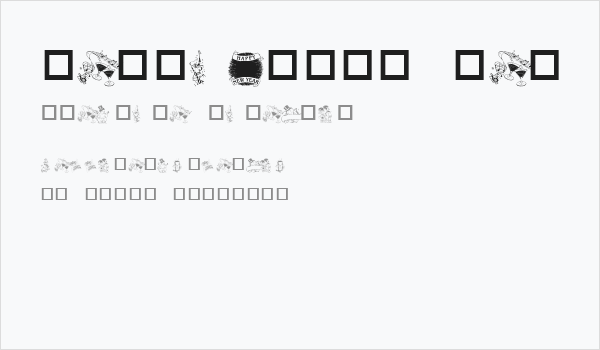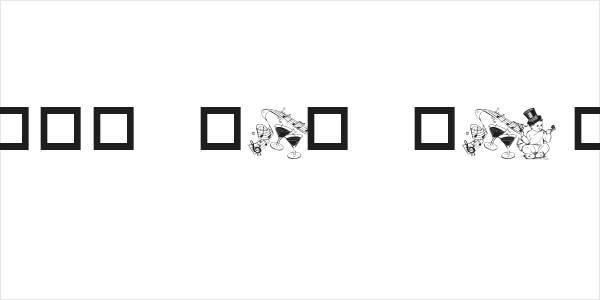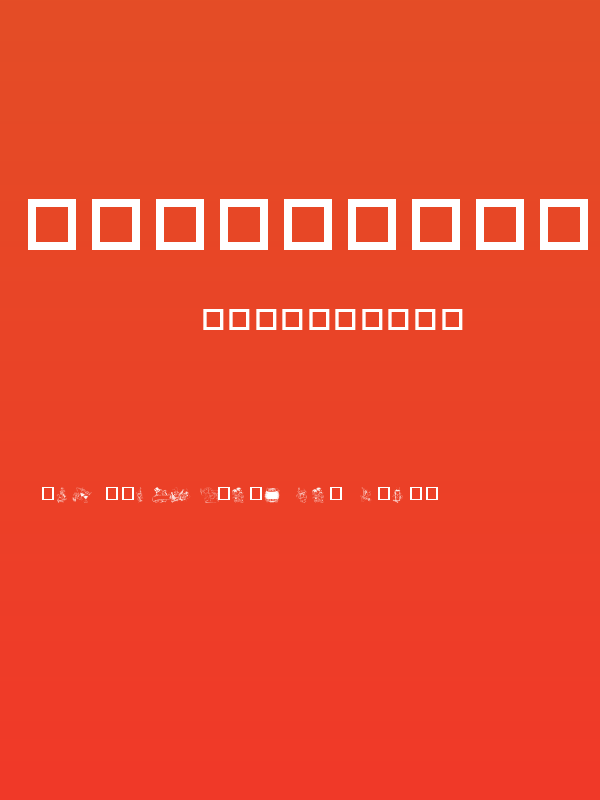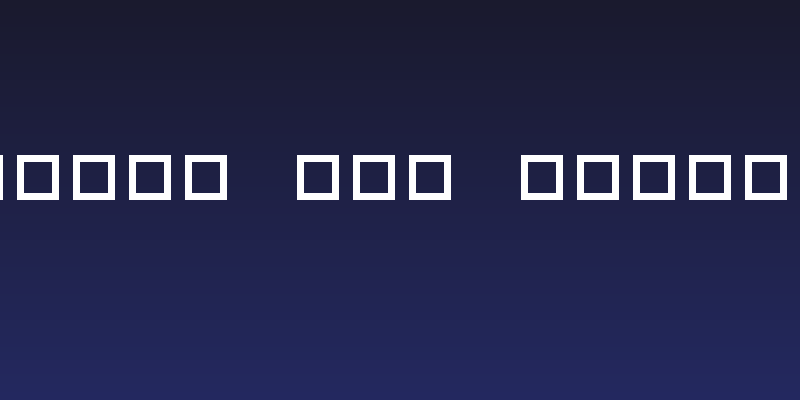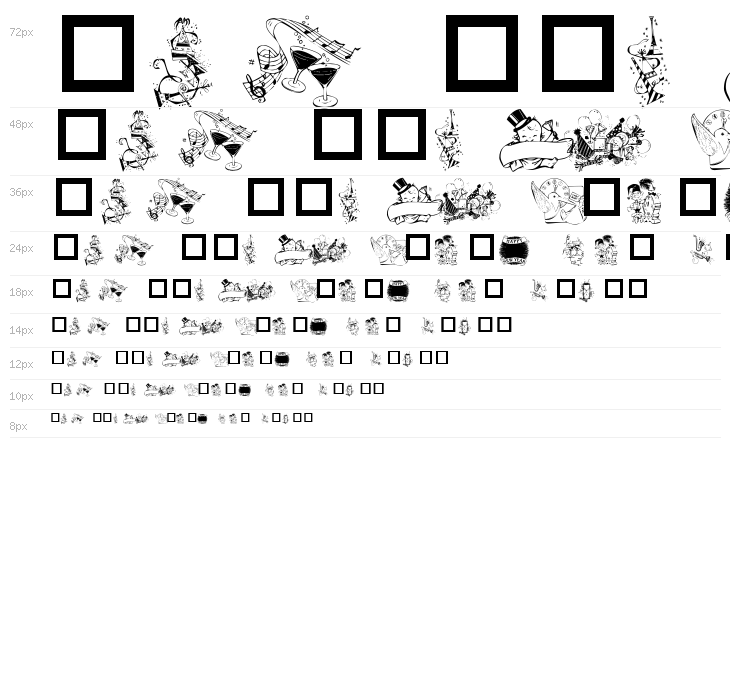
Destiny's New Years Dings Font
Destiny's New Years Dings Description
This is a decorative dingbat font featuring whimsical New Year's themed illustrations. Each character is represented by a unique, playful image related to New Year's celebrations, such as party hats, champagne glasses, and festive characters. The style is cartoonish and lively, capturing the joyous spirit of the holiday. The illustrations are detailed and intricate, making them suitable for creative and festive designs. This font is not intended for traditional text but rather for adding decorative elements to projects.
| Use Case | Decorative elements, festive designs, greeting cards. |
| Proposed Projects | Ideal for New Year's greeting cards, party invitations, festive decorations, and any celebratory design projects. |